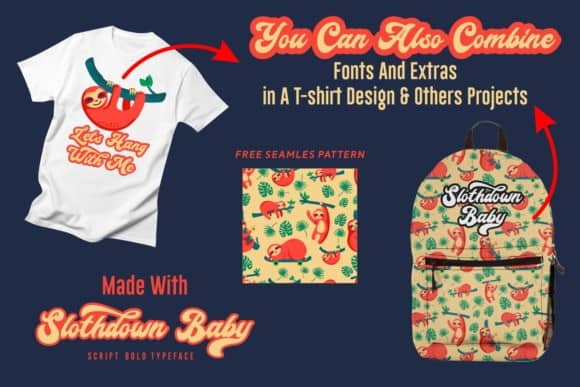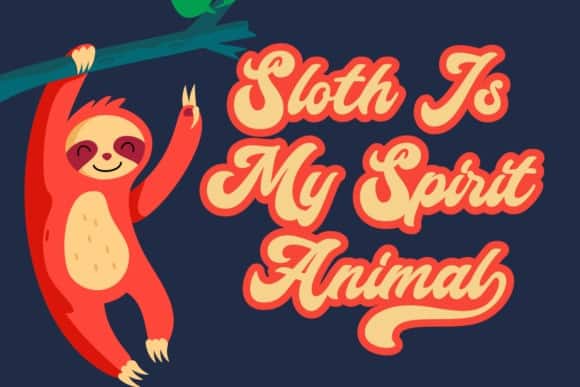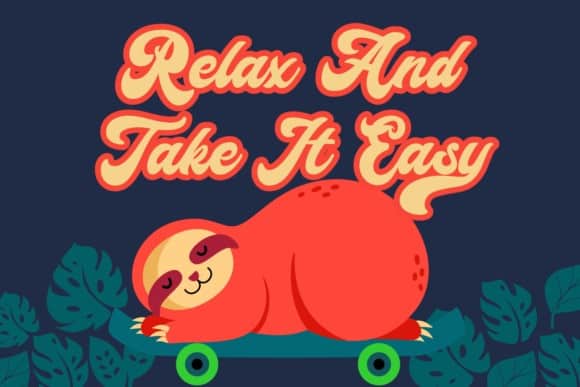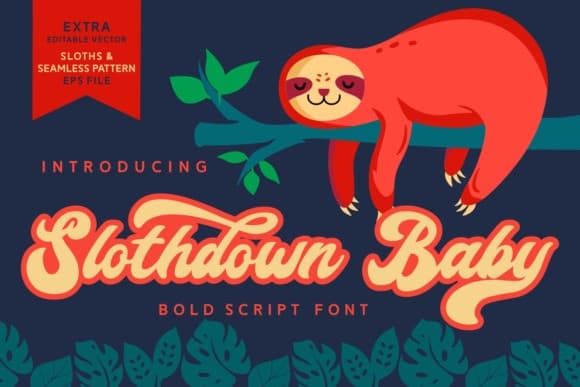
Slothdown Baby Script Font
Slothdown Baby Script Font is a lovely and friendly script for all ages Inspired by sloths. This font will looks awesome and amazing in many way to your latest project.. The font is perfect for for movie title, logo, blogging, brand identity, book title, social media, branding, wedding invites, cards or simply use it in your next design project and suitable to use for many occasion.